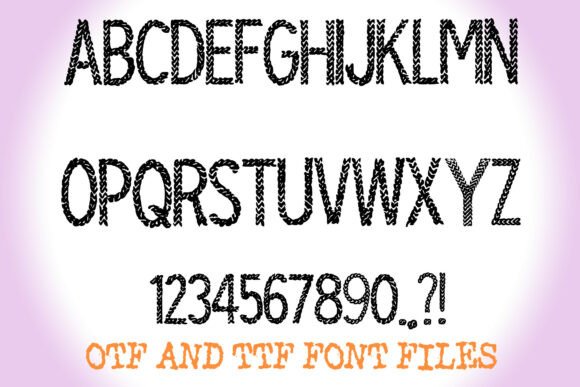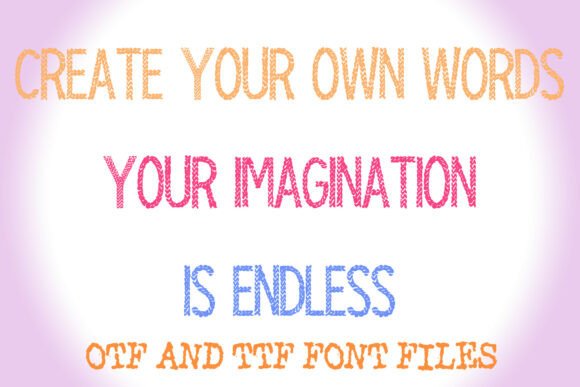
Introduction to Sew Stitch Embroidery Font
Remember the excitement of rummaging through grandma’s sewing box, discovering a treasure trove of colorful threads and intricate stitches? For many designers, this nostalgic moment sparks the desire to create something beautiful and unique. If you’re one of them, you’re in luck, as we’re about to introduce you to a design resource that will take your creative projects to the next level.
The Sew Stitch Embroidery Font is a high-quality, free download that allows you to add a touch of handmade charm to your designs. With its quirky and eclectic style, this font is perfect for designers looking to create something truly one-of-a-kind. Whether you’re working on a custom sewing project or simply want to add a personal touch to your branding, this font is a must-have in your design arsenal.
One of the standout features of the Sew Stitch Embroidery Font is its transparent background, making it easy to customize and layer with other design elements. With this font, the possibilities are endless, and we can’t wait to see what creative projects you’ll come up with!
Key Features of Sew Stitch Embroidery Font
- High-quality, intricate designs for various creative projects, including embroidery and sewing.
- Comes with a transparent background, allowing for easy integration into various design software and applications.
- Each design is carefully crafted with high resolution (300 DPI) to ensure crisp and clear details.
- Available in various sizes, from small to large, to accommodate different embroidery and sewing projects.
- Unique and intricate stitch patterns, making it an ideal choice for crafters and artists looking to add a personal touch to their creative projects.
Honest Review: Sew Stitch Embroidery Font
I recently stumbled upon the Sew Stitch Embroidery Font, and I must say it’s been a game-changer for my creative projects. As a designer, I’m always on the lookout for high-quality design resources that can elevate my work, and this font definitely fits the bill.
- ✨ High-quality design: The Sew Stitch Embroidery Font is beautifully crafted with intricate stitches and a seamless texture that adds a touch of authenticity to any project.
- ✨ Versatile usage: The font is perfect for embroidery patterns, craft designs, and even digital projects that require a touch of handmade charm.
- ✨ Easy to use: The font is available for free download, and the transparent background makes it easy to use in various design applications.
While I love the Sew Stitch Embroidery Font, there are a few limitations to consider:
- ⚠️ Limited character set: The font only includes a limited character set, which may not be suitable for extensive text-based projects.
- ⚠️ Not ideal for small-scale designs: The intricate stitches and texture may not be visible in small-scale designs, so it’s best to use it for larger projects.
Overall, I’m thoroughly impressed with the Sew Stitch Embroidery Font. Its unique design and versatility make it a valuable addition to any designer’s toolkit. While it has some limitations, the benefits far outweigh the drawbacks, making it a must-have for any creative project.
Sew Stitch Embroidery Font
The Sew Stitch Embroidery Font is a high-quality design resource that offers a unique and creative way to add embroidery-style text to your projects. This free download is perfect for designers, crafters, and anyone looking to add a personal touch to their work.
The Sew Stitch Embroidery Font is perfect for a variety of creative projects, including:
- Embroidery and sewing patterns
- Home decor and wall art
- Personalized gifts and accessories